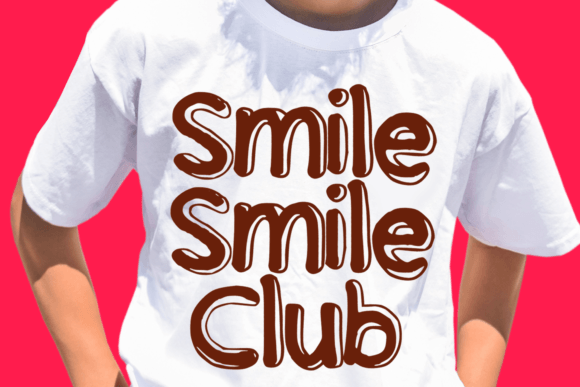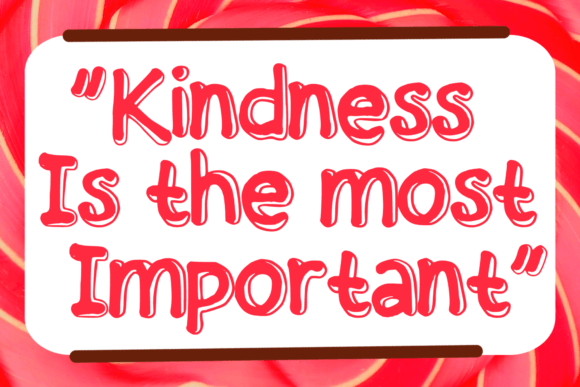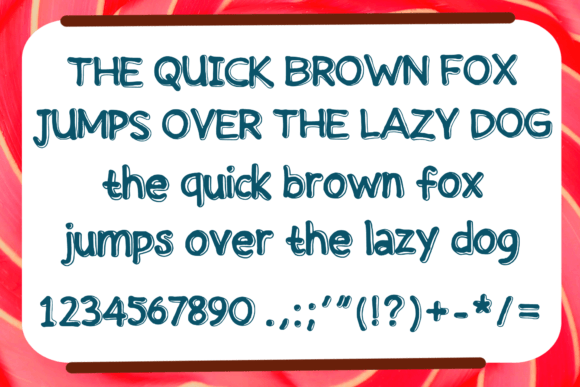
Introduction to Retro Candy Font
Retro Candy is a cool retro style candy display font.
You can use it for anything ranging from t-shirts, kids’ book designs, greeting cards, stickers, and posters, or anything that needs a casual touch Fall in love with its incredibly versatile style, and use it to create lovely designs.
Key Features of Retro Candy Font
Why Choose Retro Candy Font?
Retro Candy Font offers exceptional quality and versatility, making it a valuable addition to your design toolkit. Whether you’re creating for personal projects or commercial use, Retro Candy Font delivers professional results.